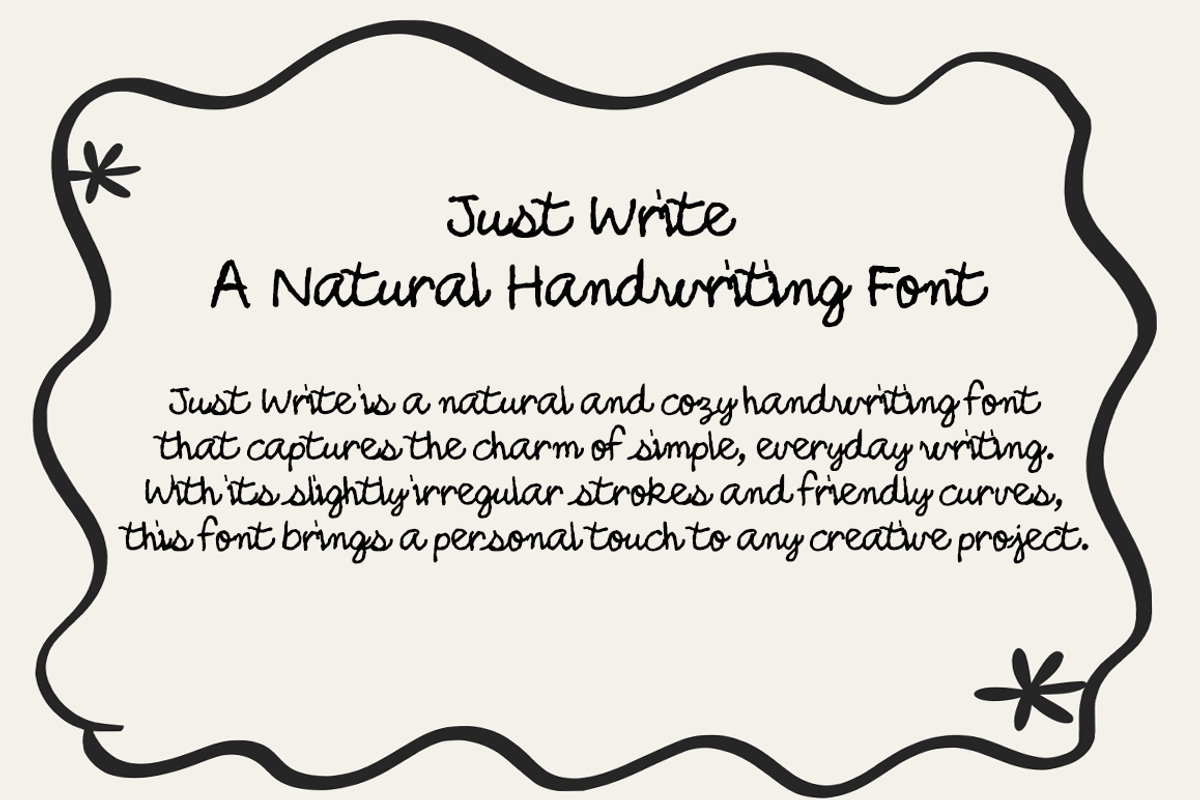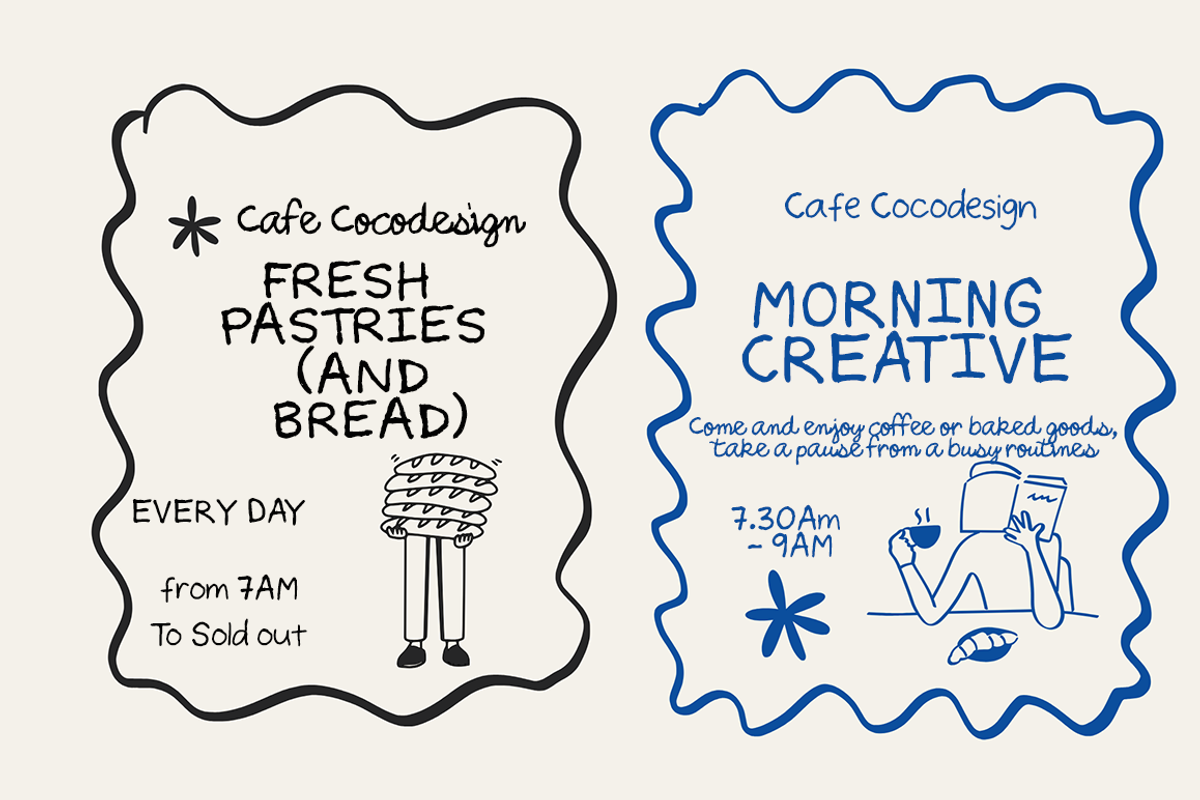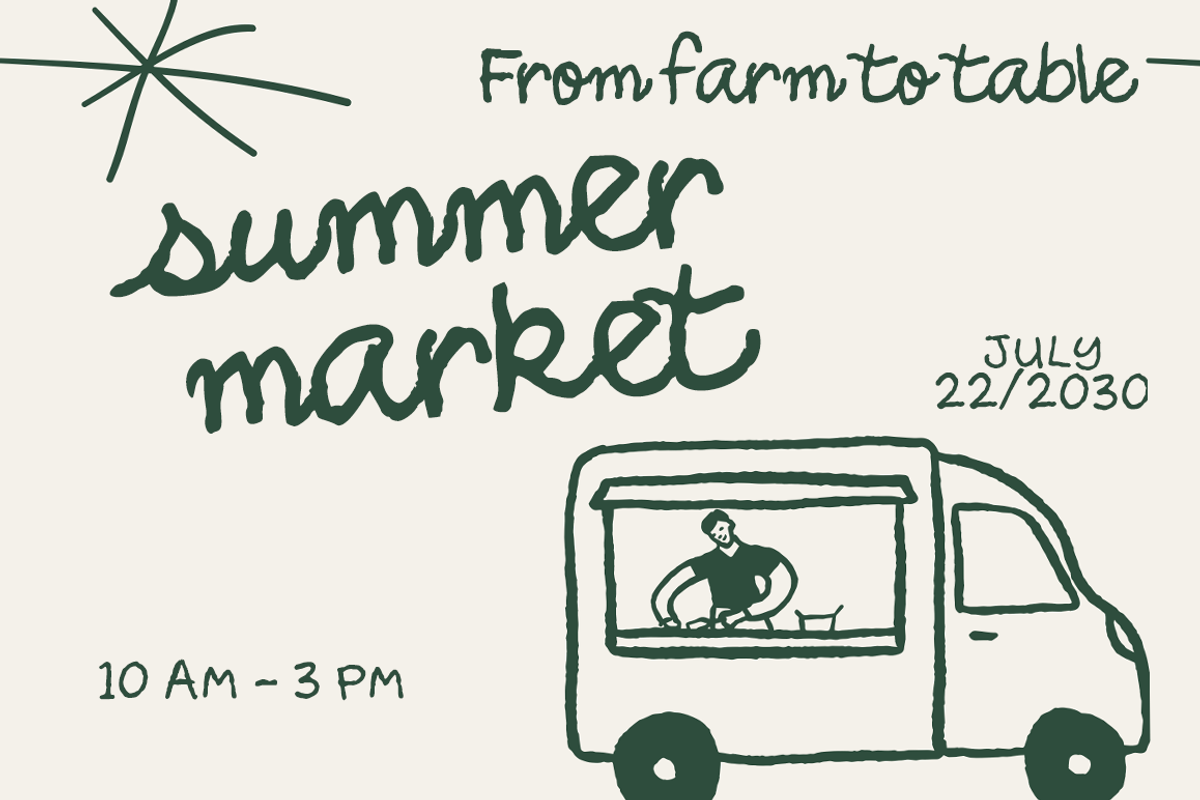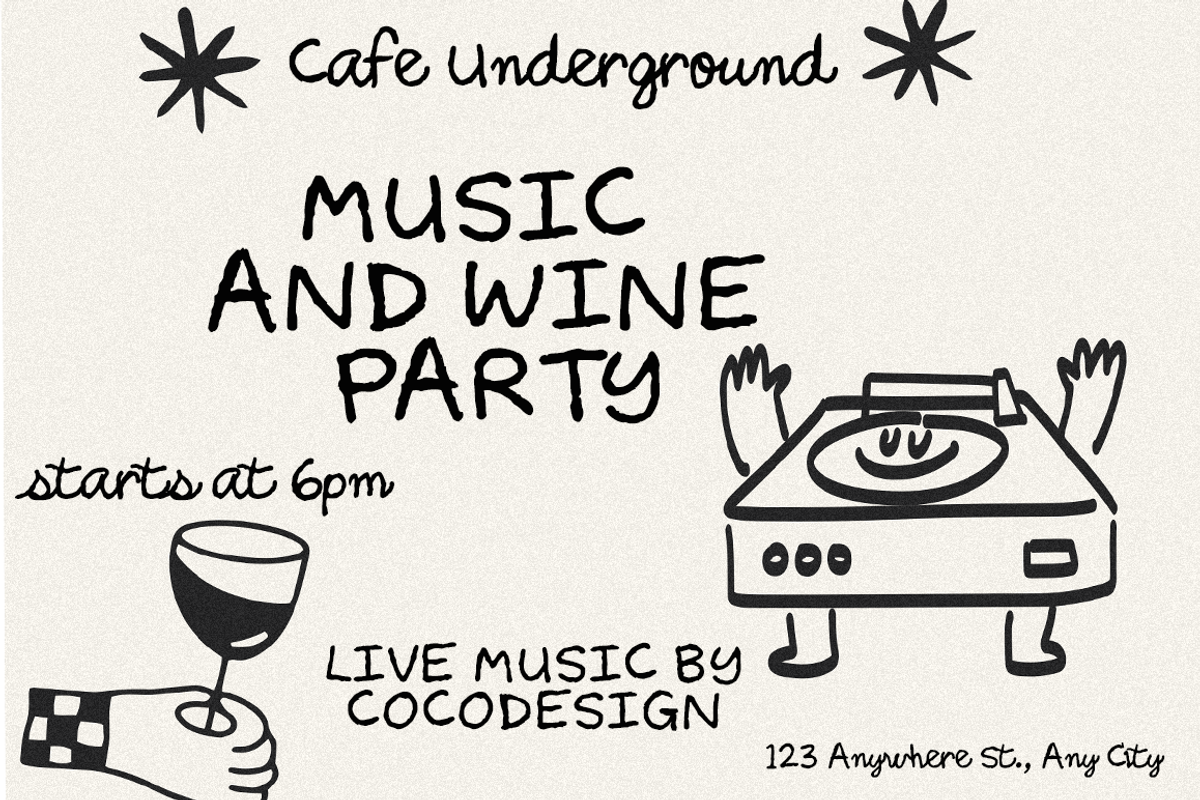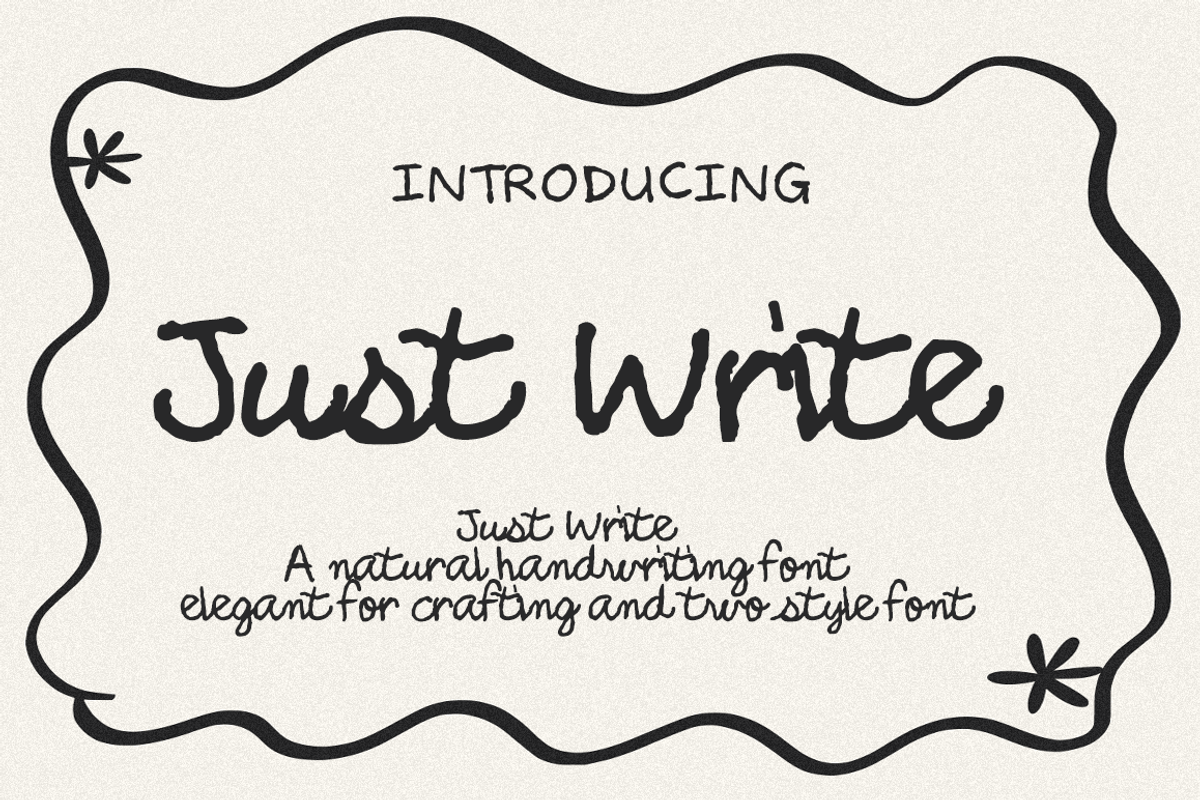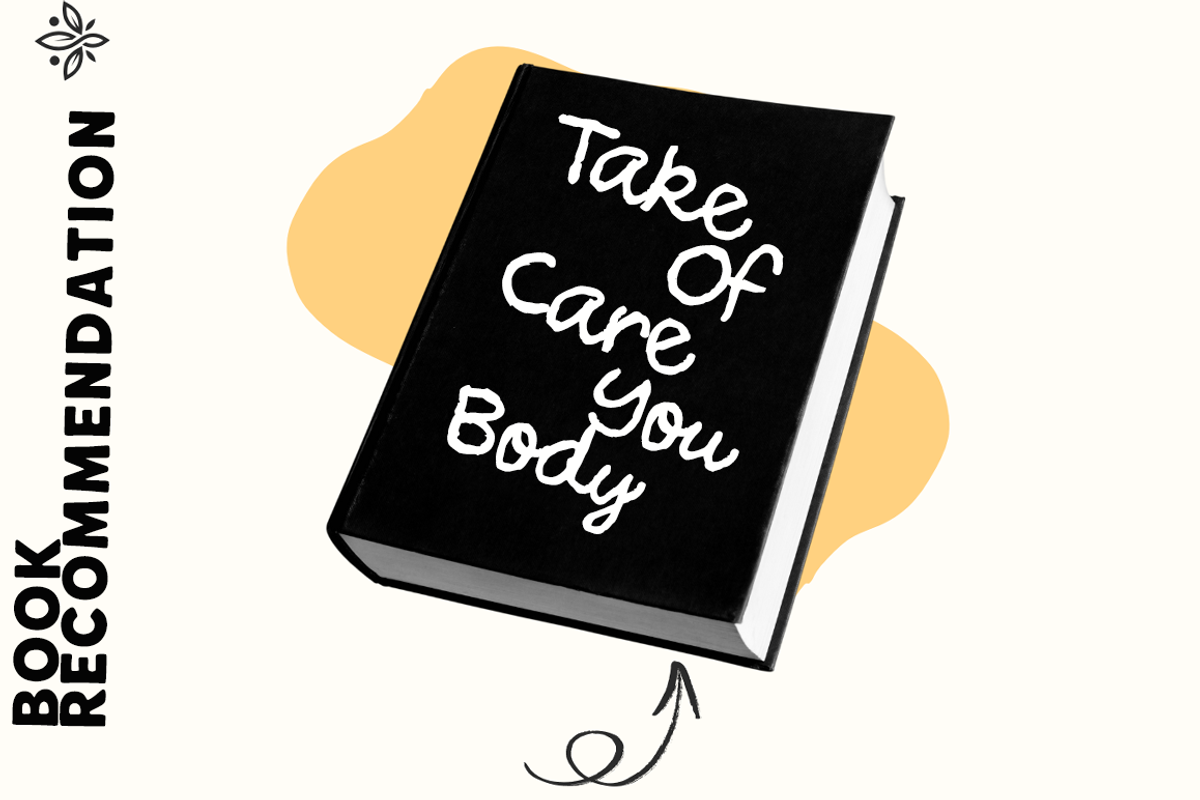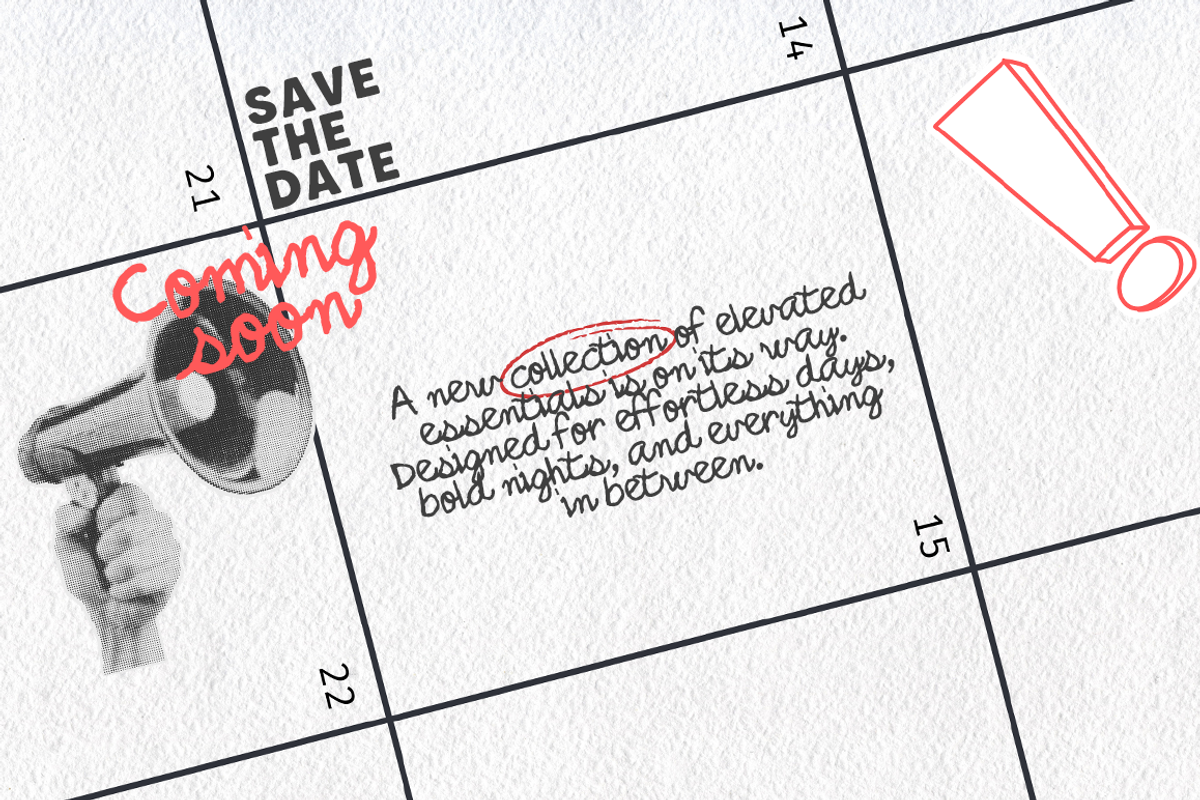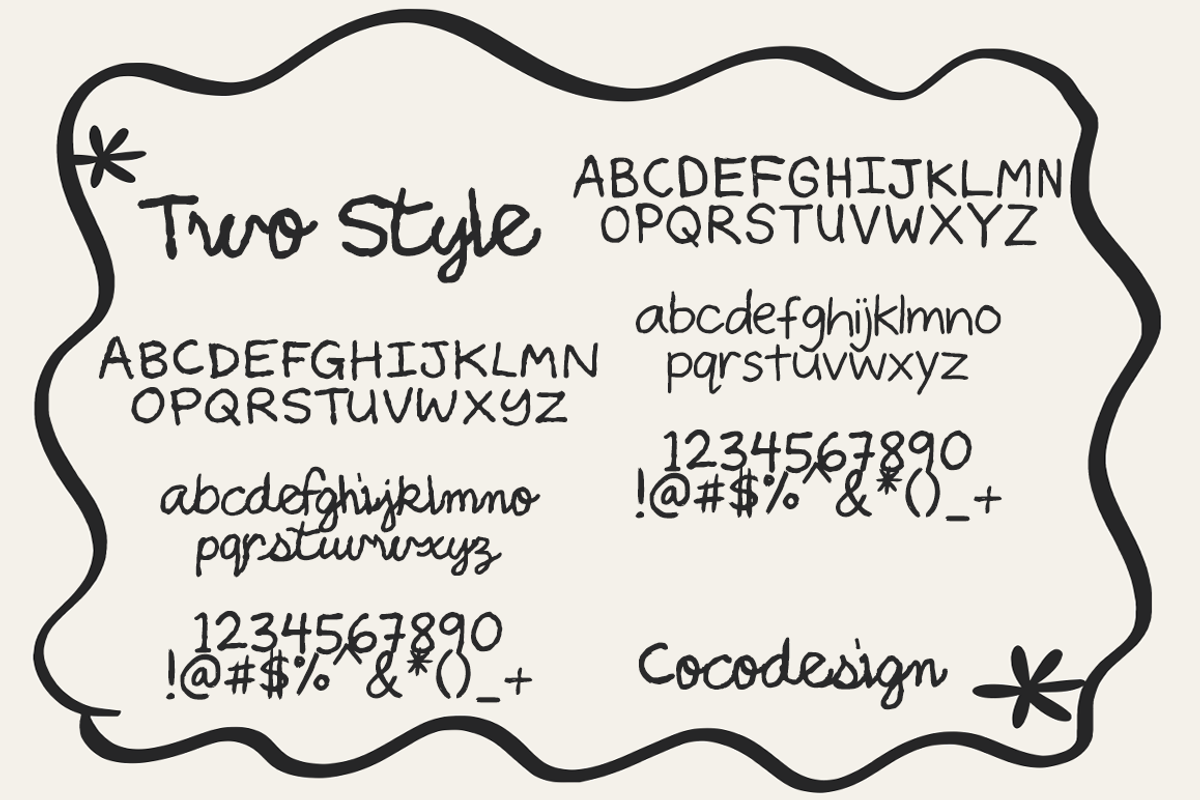
Just Write – Natural Handwriting
Just Write is a natural handwriting font with two complementary styles — Regular and Smooth. The Regular version features natural pen textures for a casual handwritten effect, while the Smooth version offers clean and consistent strokes for modern, minimalist applications.
Both styles are designed with balanced proportions and friendly letterforms, making this font versatile for a wide range of creative projects. The natural structure ensures clear legibility, suitable for crafting, branding, stationery, and social media design.
✨ Included Styles:
Just Write Regular – natural, textured handwritten look
Just Write Smooth – clean, polished handwriting style